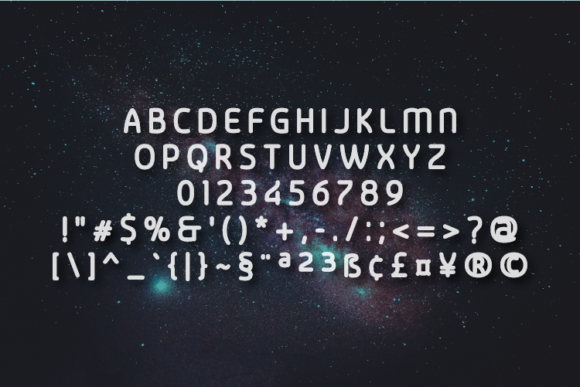
Introduction to Darieno Font
Darieno is a simple and modern sans serif font with an undeniably clean feel.
With its neat and beautiful arrangement of letters, this typeface will look outstanding in both formal and non-formal designs .
Why Choose Darieno Font?